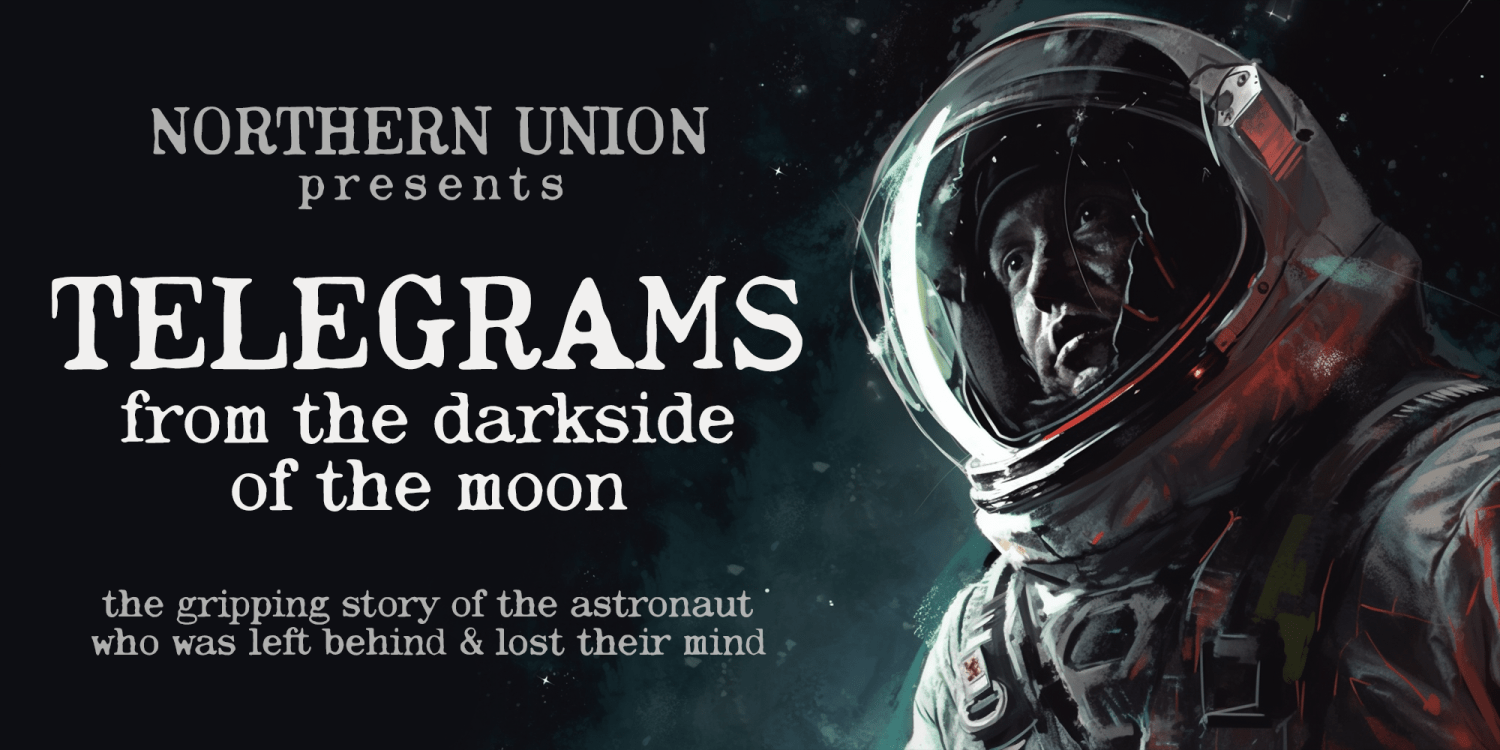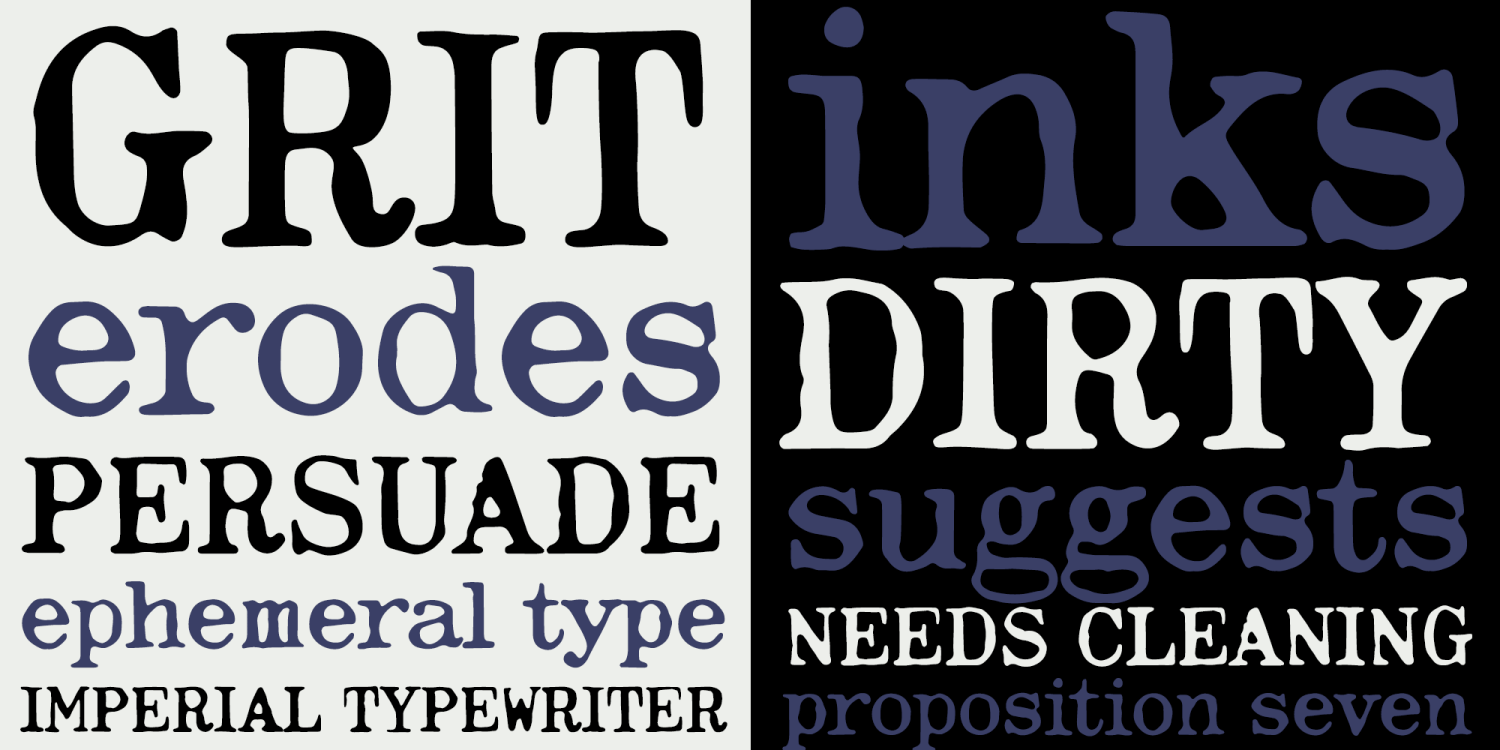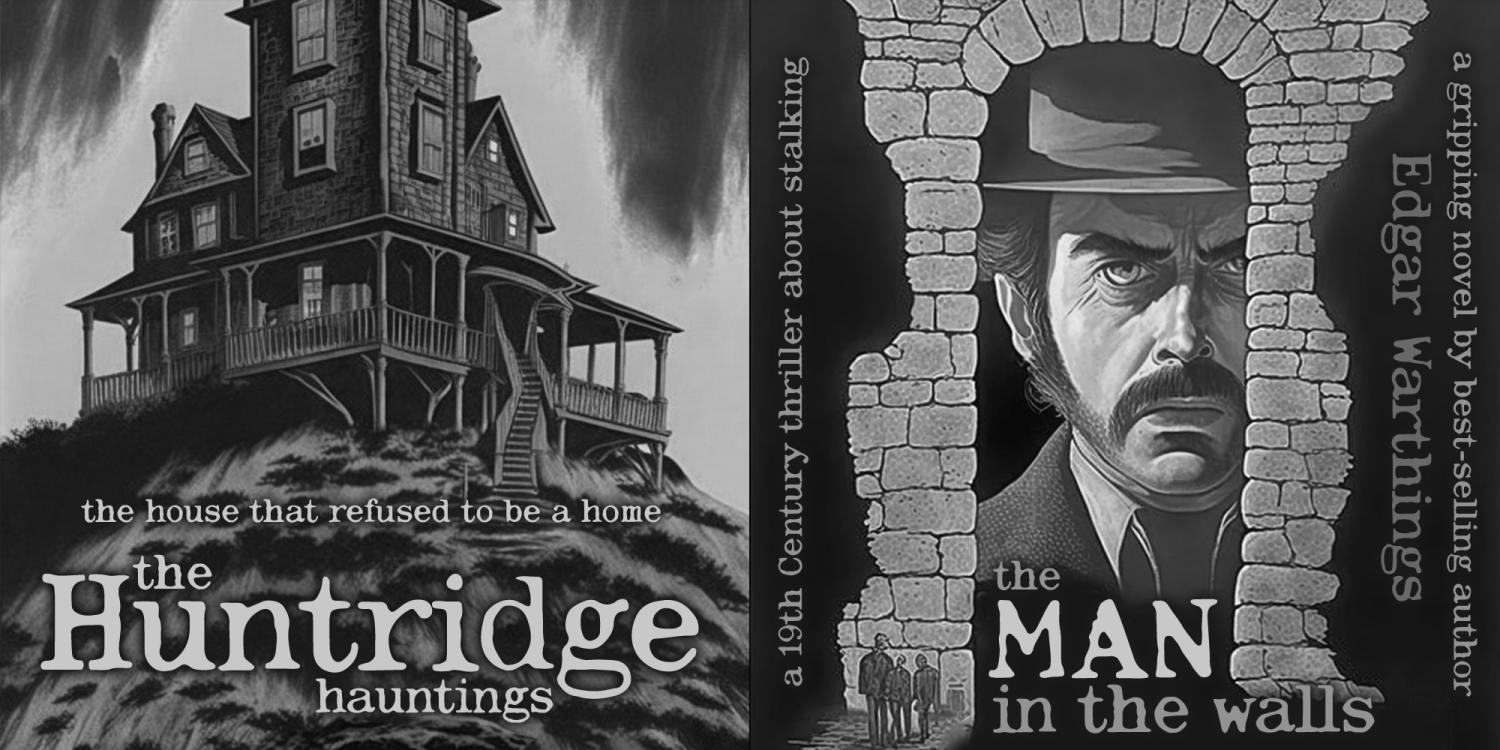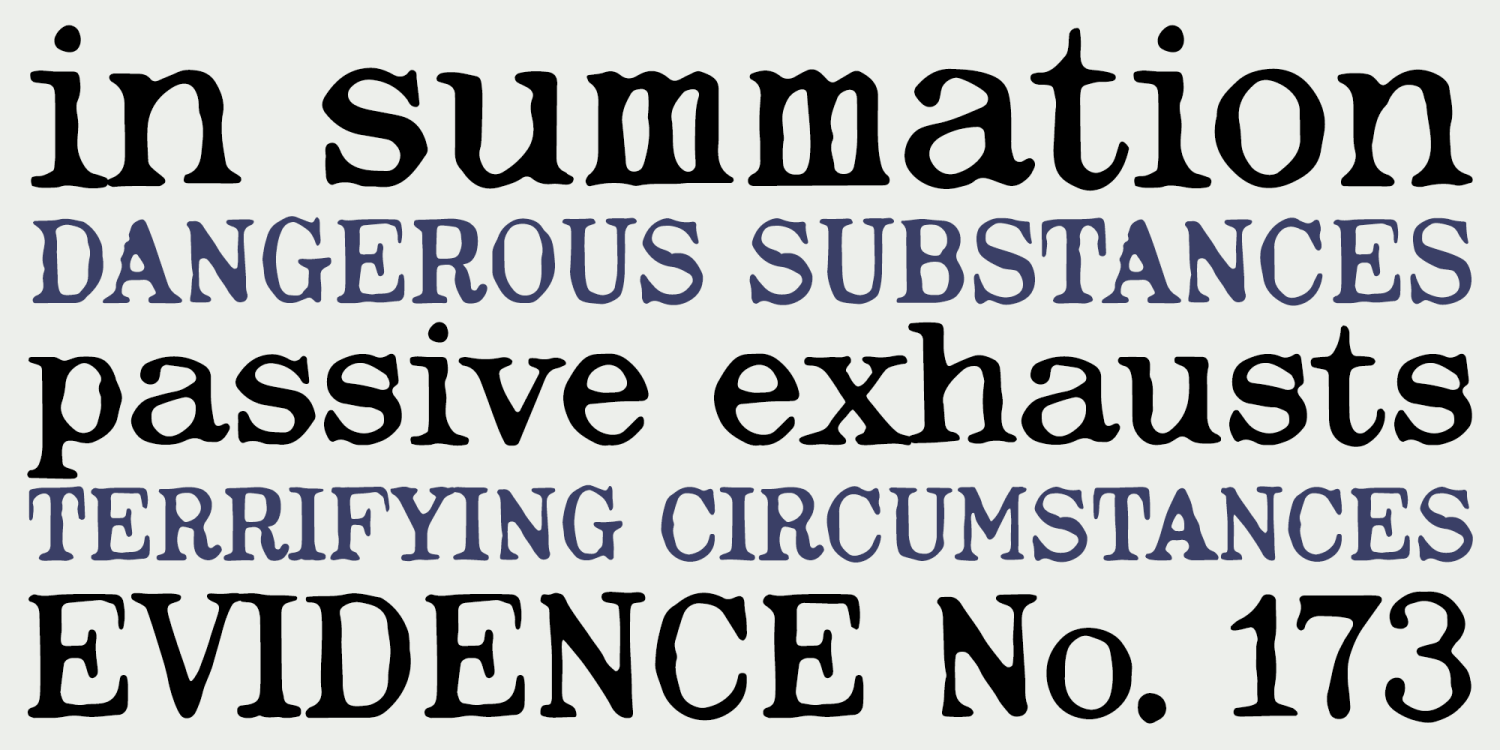
About Imperial Grunge
The Imperial typewriter, over-inked and slimy and grungy, in all it's glory. A second a slightly different set of Capitals and lowercase characters is automatically swapped in by way of the Ligatures feature saving you all the time in the world getting…